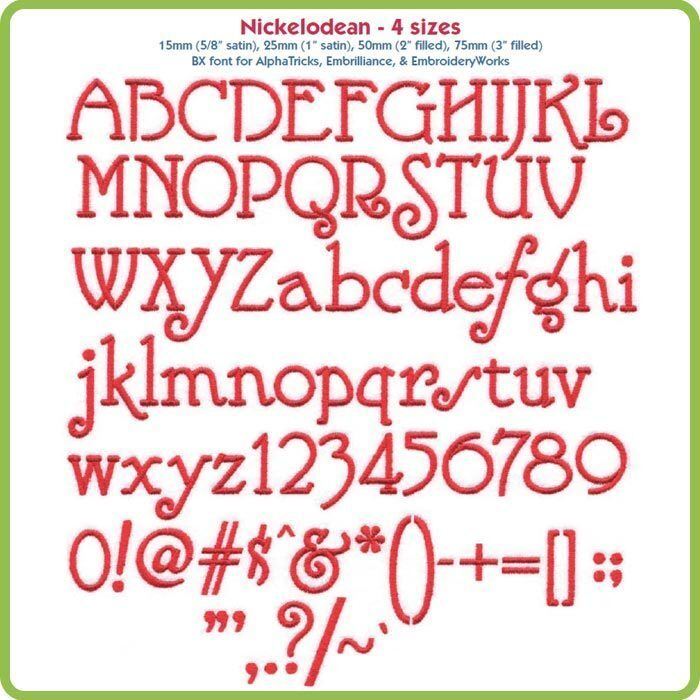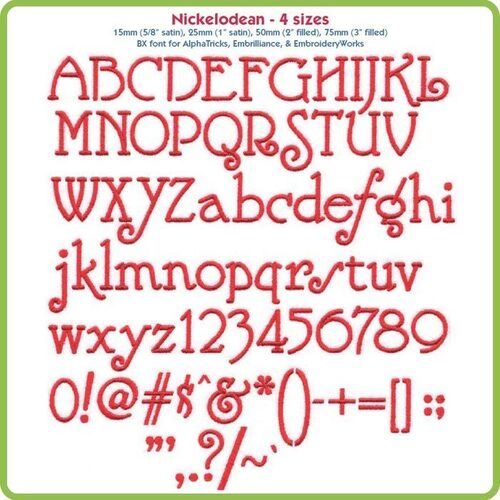
Collection Notes: Nickelodean is a stylized, decorative serif machine embroidery font that includes A-Z, a-z, 0-9 and the following punctuation: !@#$^&*()-+=[]:;"'<>,.?/ (86 total characters). This bundle includes the following sizes: 15mm (5/8") satin, 25mm (1") satin, 50mm (2") satin, 75mm (3") fill.